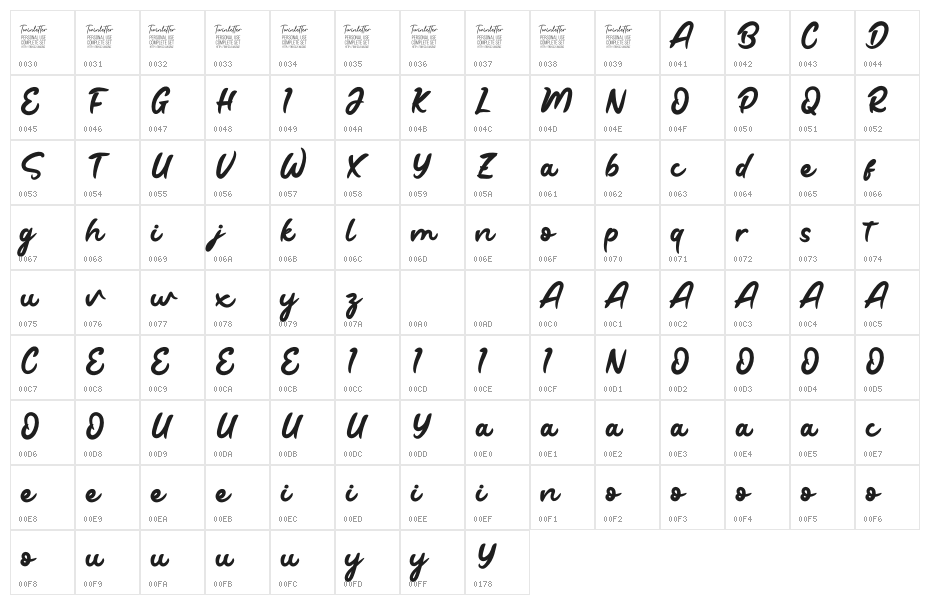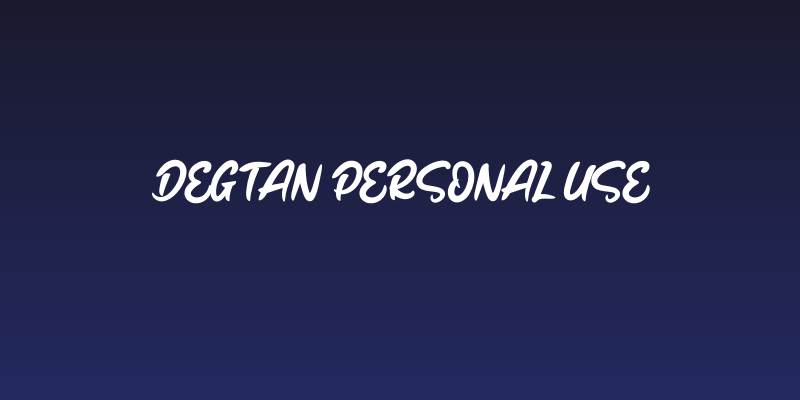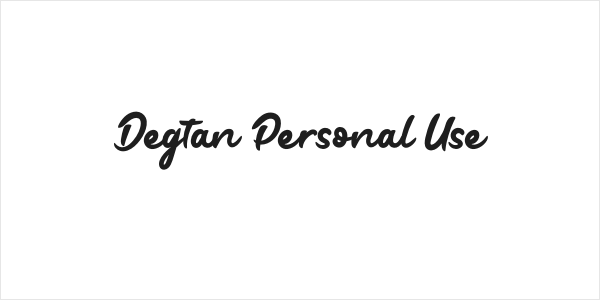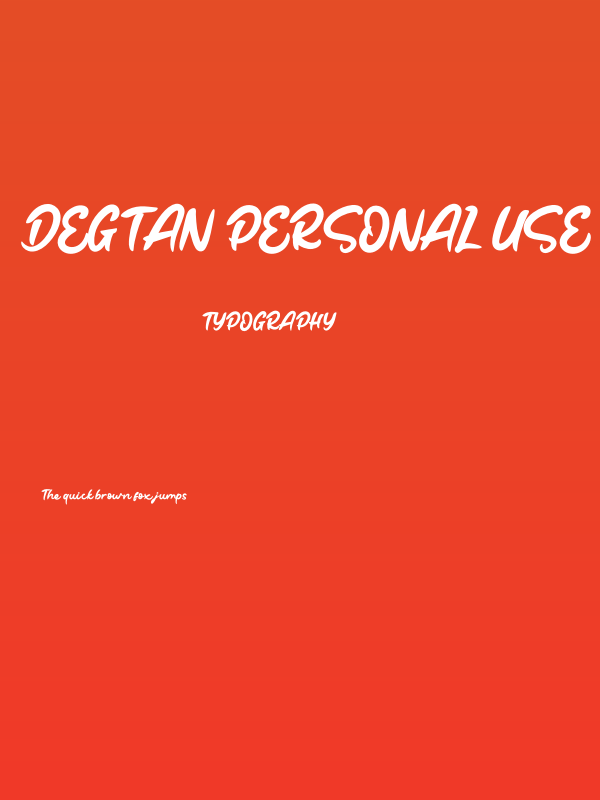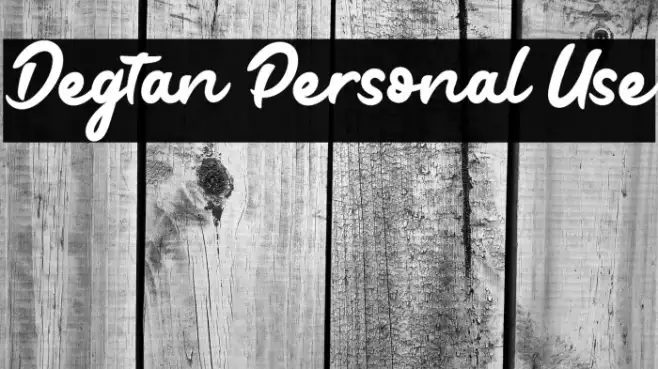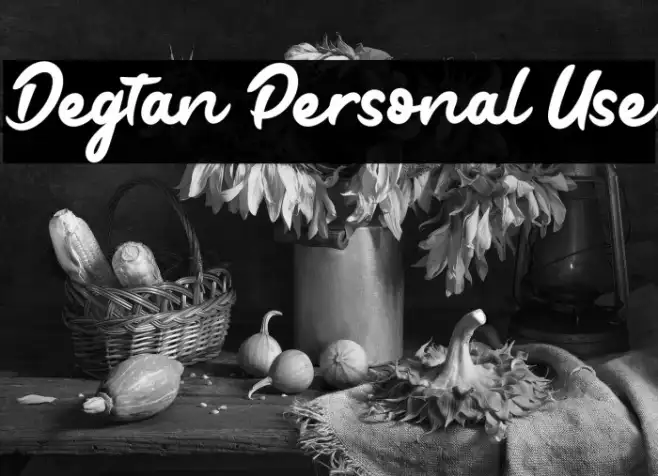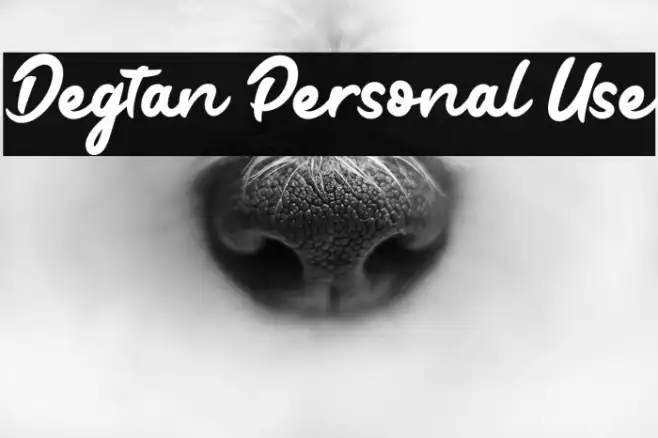
Degtan Personal Use Font
Degtan Personal Use Description
This font features a bold and expressive script style, characterized by its fluid and dynamic strokes. The uppercase letters are bold and slightly slanted, giving a sense of movement and energy. The lowercase letters maintain a consistent flow, with smooth curves and loops that enhance its handwritten appearance. The font exudes a casual yet sophisticated vibe, making it suitable for a variety of creative projects. Its boldness ensures readability while maintaining an artistic flair. The special characters are seamlessly integrated, maintaining the overall aesthetic of the font.
| Proposed Projects | Ideal for branding, invitations, greeting cards, and social media graphics. |